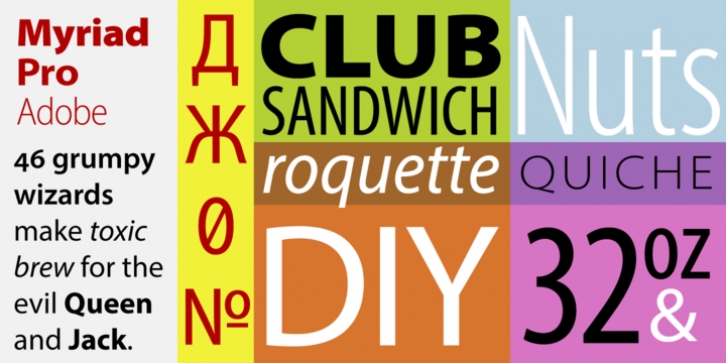
Publisher: Adobe
An Adobe Originals design first released in 1992, Myriad has become popular for both text and display composition.
As an OpenType release, Myriad Pro expands this sans serif family to include Greek and Cyrillic glyphs, as well as adding oldstyle figures and improving support for Latin-based languages. The full Myriad Pro family includes condensed, normal, and extended widths in a full range of weights.
Designed by Robert Slimbach & Carol Twombly with Fred Brady & Christopher Slye, Myriad has a warmth and readability that result from the humanistic treatment of letter proportions and design detail.
Myriad Pro’s clean open shapes, precise letter fit, and extensive kerning pairs make this unified family of roman and italic an excellent choice for text typography that is comfortable to read, while the wide variety of weights and widths in the family provide a generous creative palette for even the most demanding display typography.